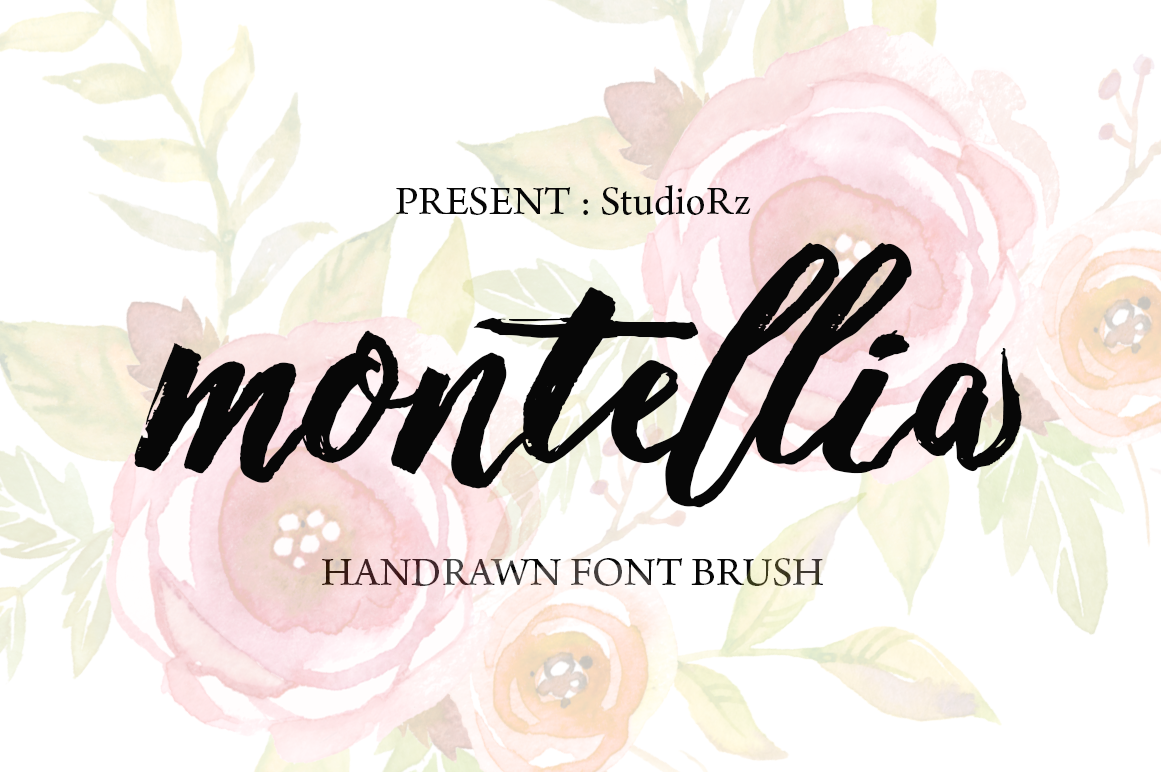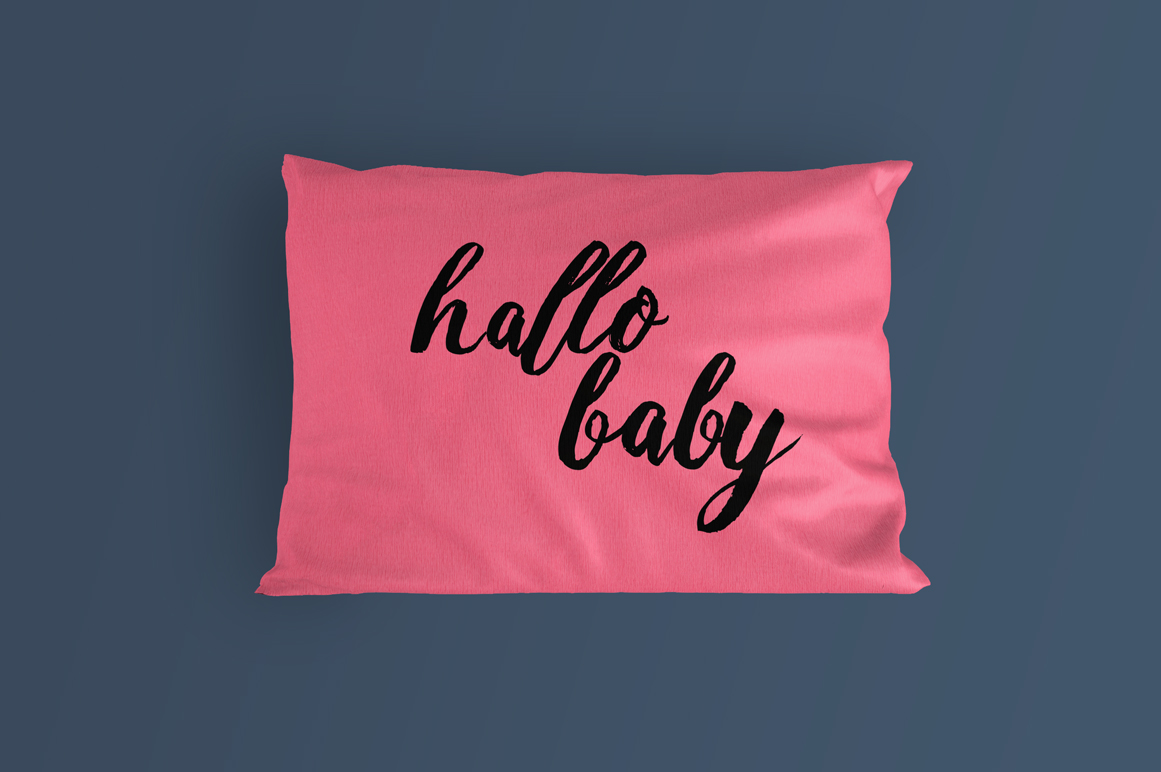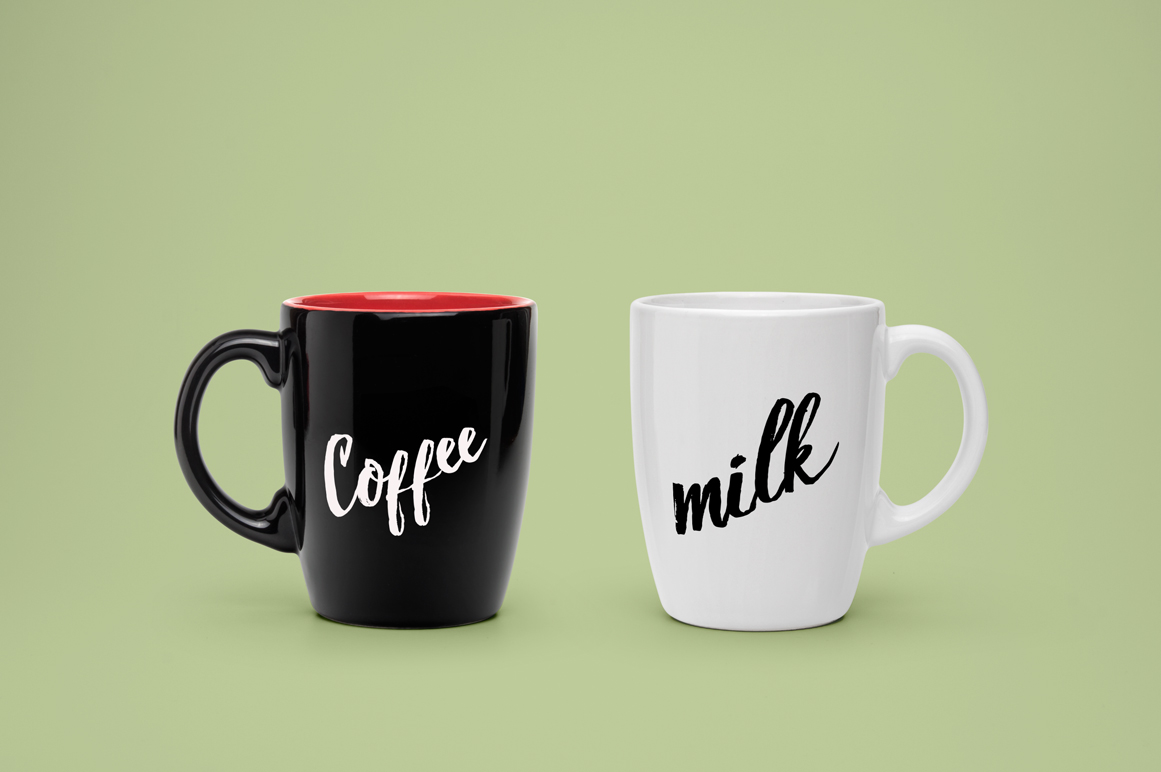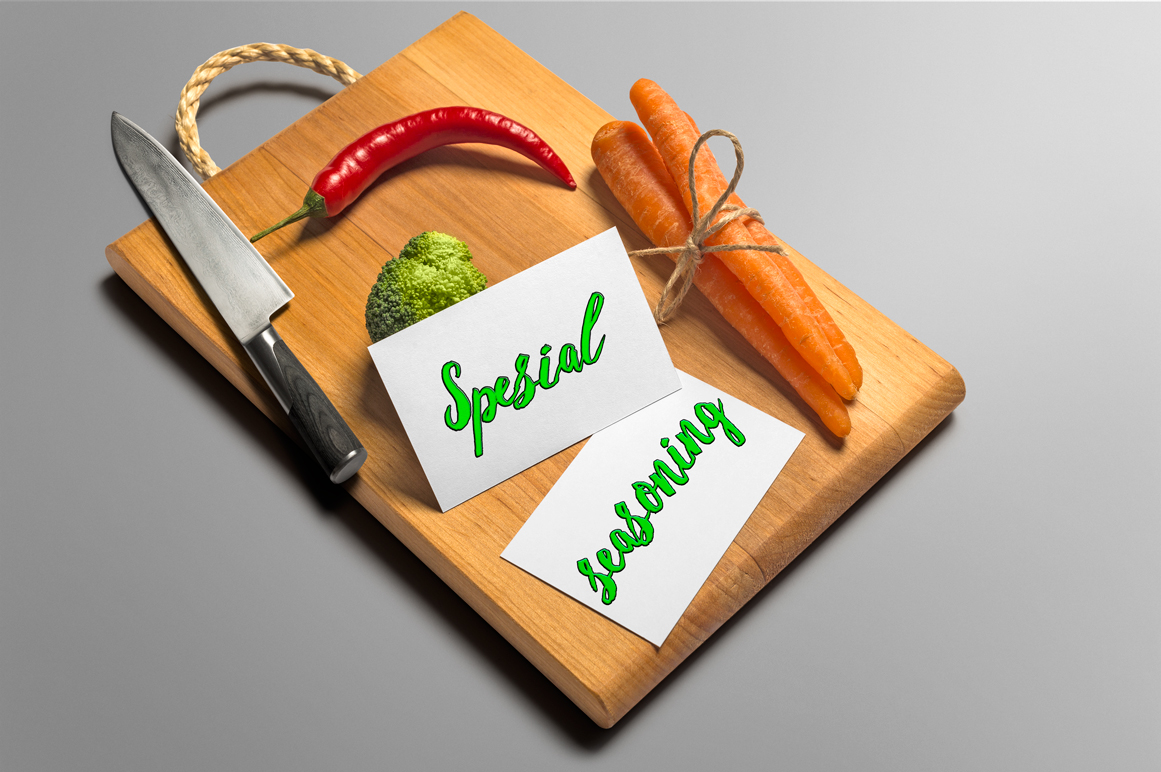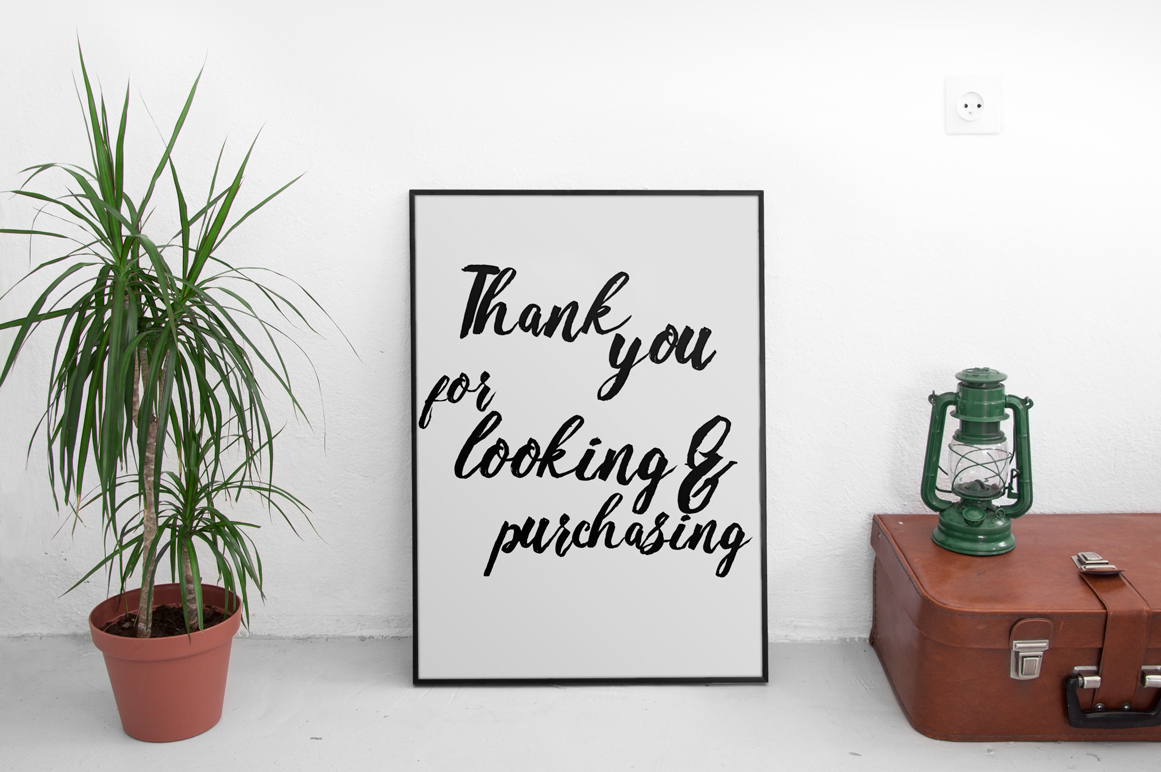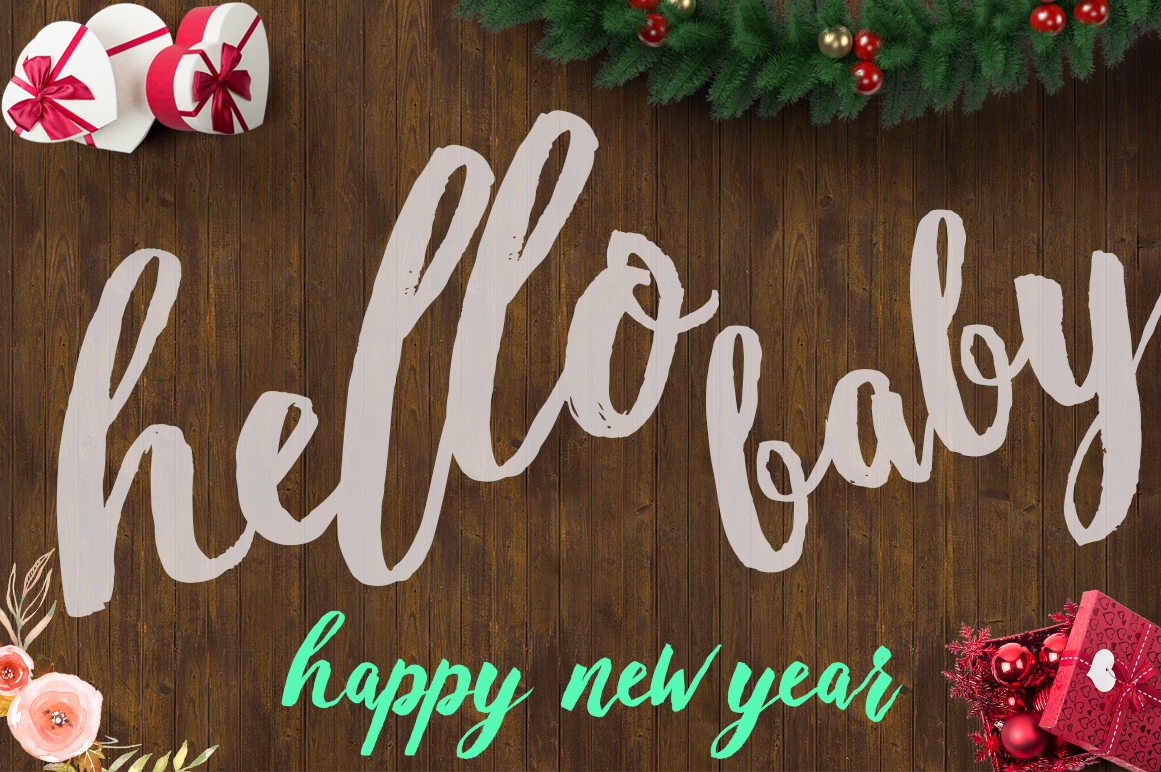
HomeScript FontsMontellia Font Script Fonts Montellia Font FacebookXPinterestWhatsApp Montellia Font Poster 2 Montellia Font Poster 3 Montellia Font Poster 4 Montellia Font Poster 5 Montellia Font Poster 6 About Montellia Font Monetellia is a handwritten brush style font created by StudioRz. DOWNLOAD NOW People also explored Full of Love Font Abysmal Gaze Arkqunie Outline Extra Black Font Monogram Signature Font Charlotte Southern Font Baby Angel Font City Tour Montagna Font Kaleidos 288 0 TagsMontellia Font Previous articleWolfband FontNext articleAuthentic Font LEAVE A REPLY Cancel reply Comment: Please enter your comment! Name:* Please enter your name here Email:* You have entered an incorrect email address! Please enter your email address here Website: Save my name, email, and website in this browser for the next time I comment. Personal Use Free Martani Personal Use Free Read more about this font Amellis Path Personal Use Free Read more about this font Anggiana Personal Use Free Read more about this font Cute Messy Personal Use Free Read more about this font BLOG Best Fonts for T-Shirt Design – Top 2025 Picks In 2025, t-shirt design has become more than just fashion—it's a form of self-expression. Whether you're... The 10 Best Handwriting Fonts to Add Personality to Your Designs Top 10 Handwritten Fonts That Elevate Your Designs How to Cut Any Font on Cricut: Convert a Font to SVG (Free)